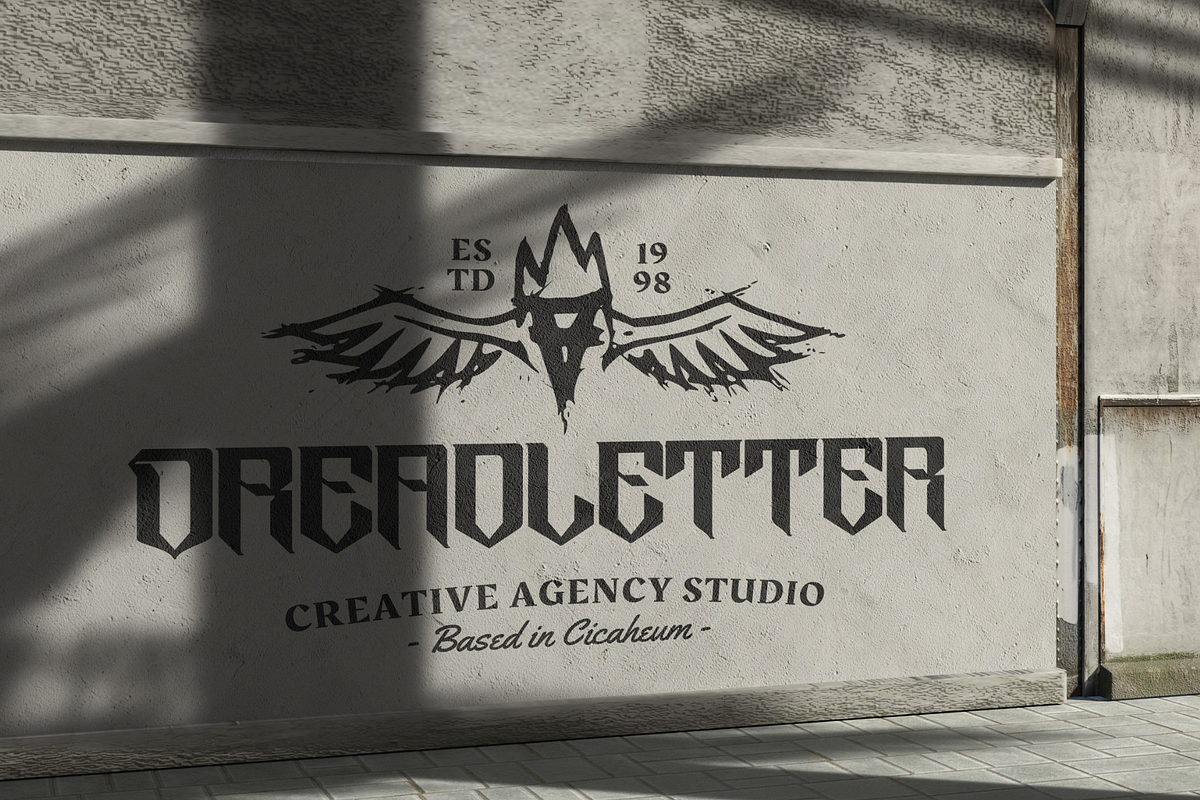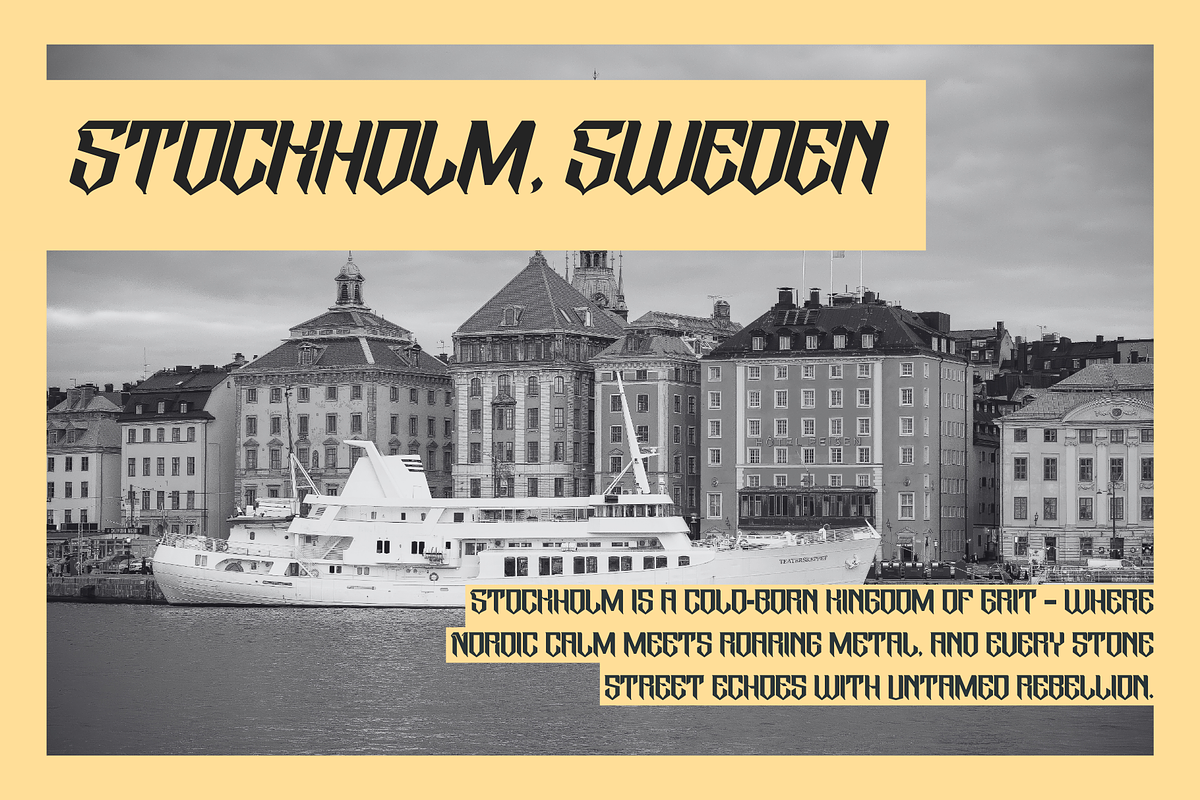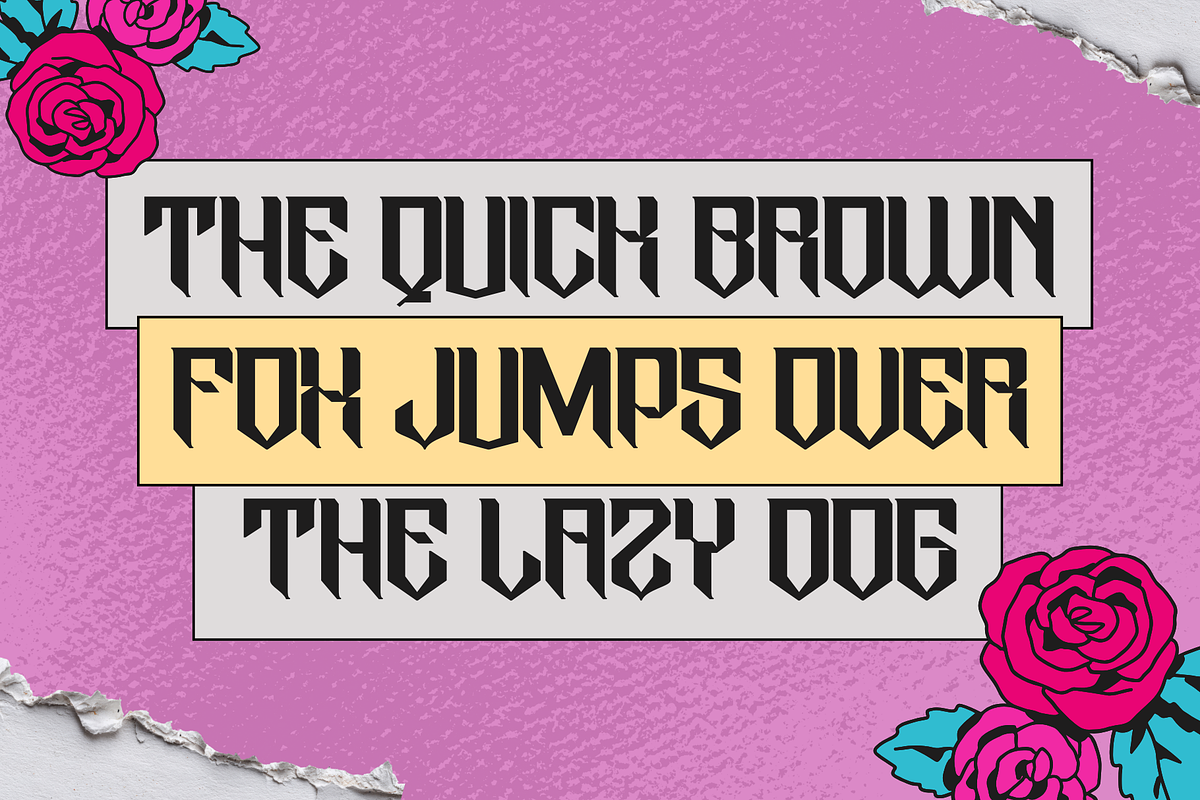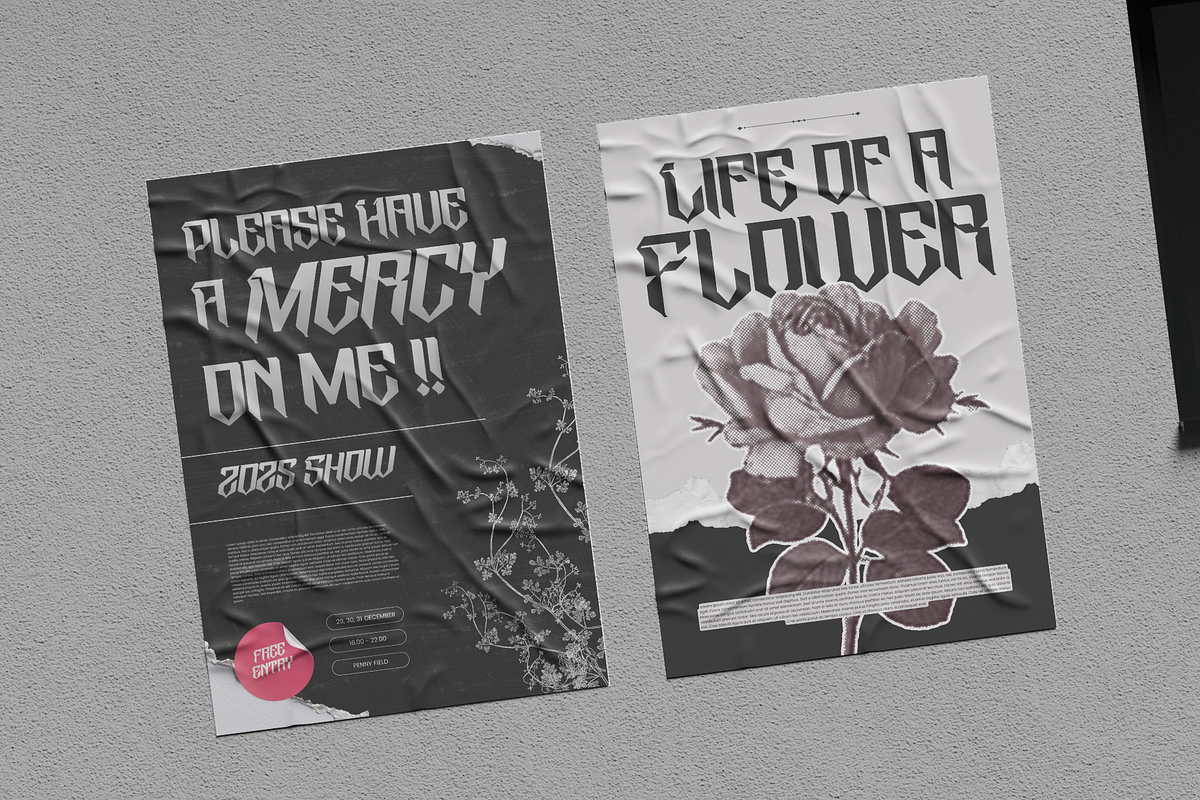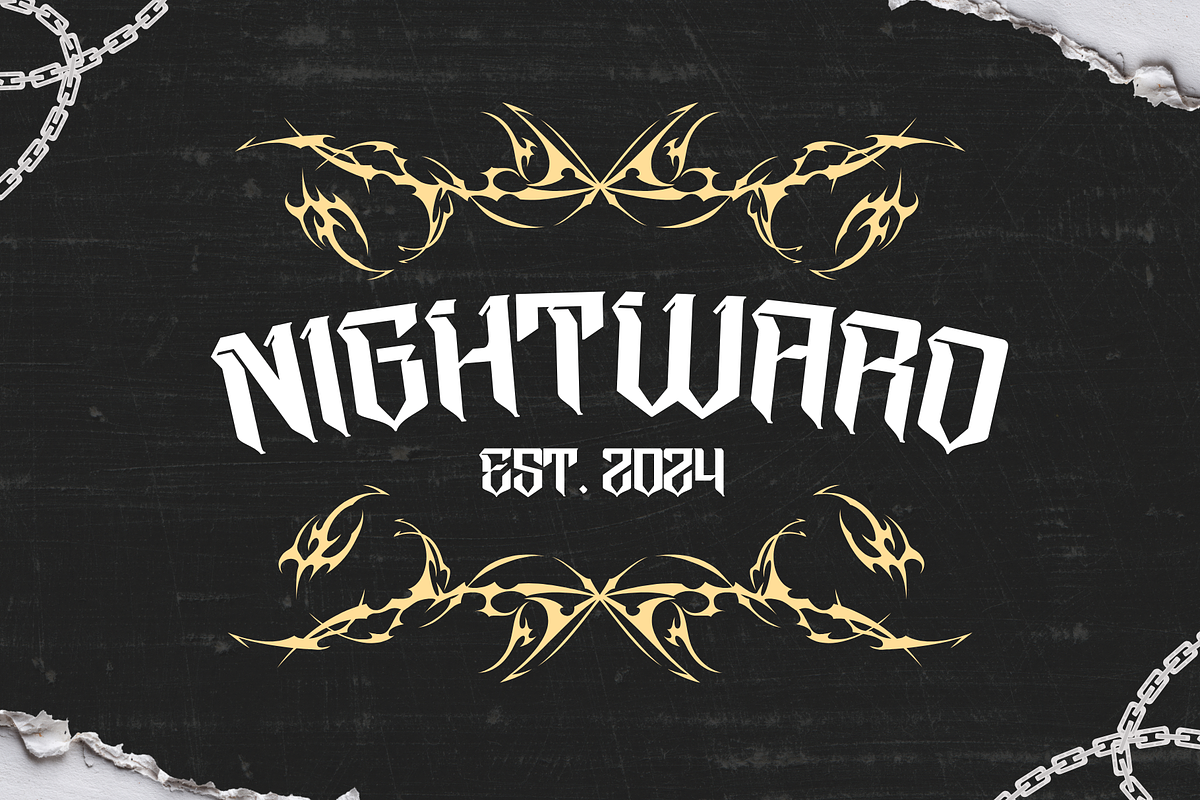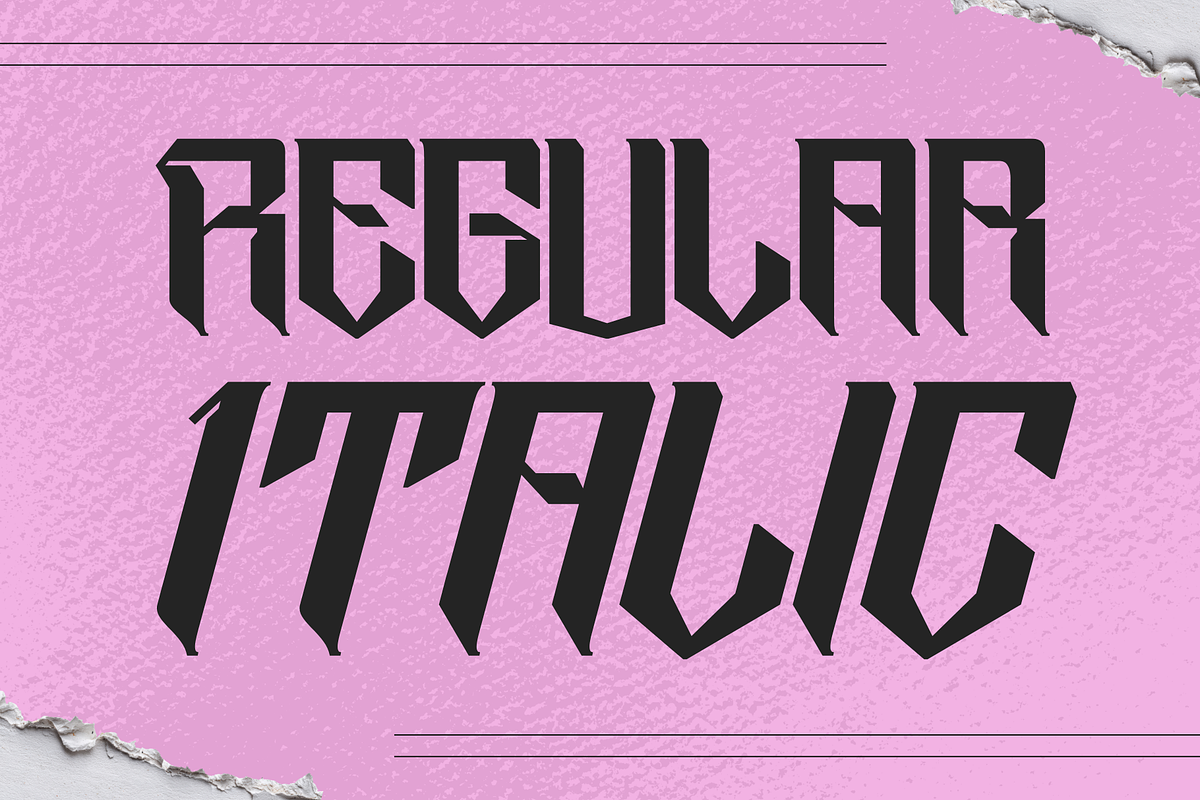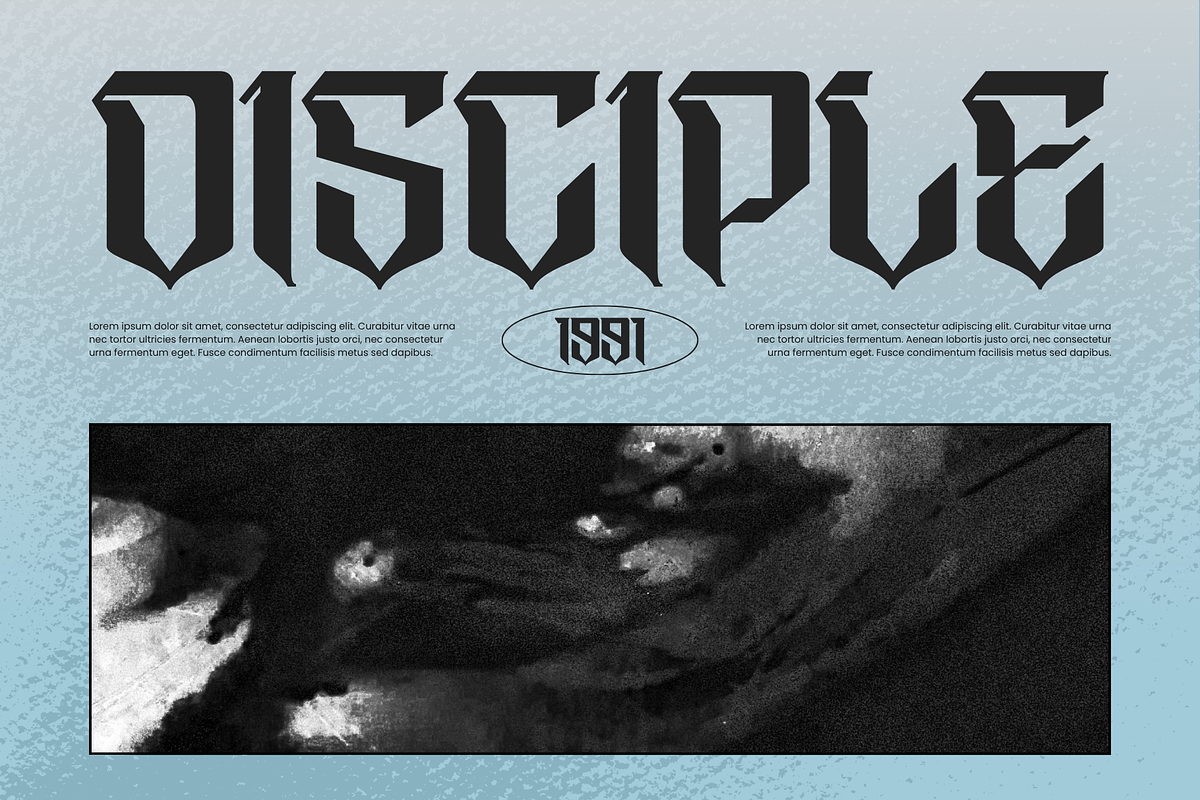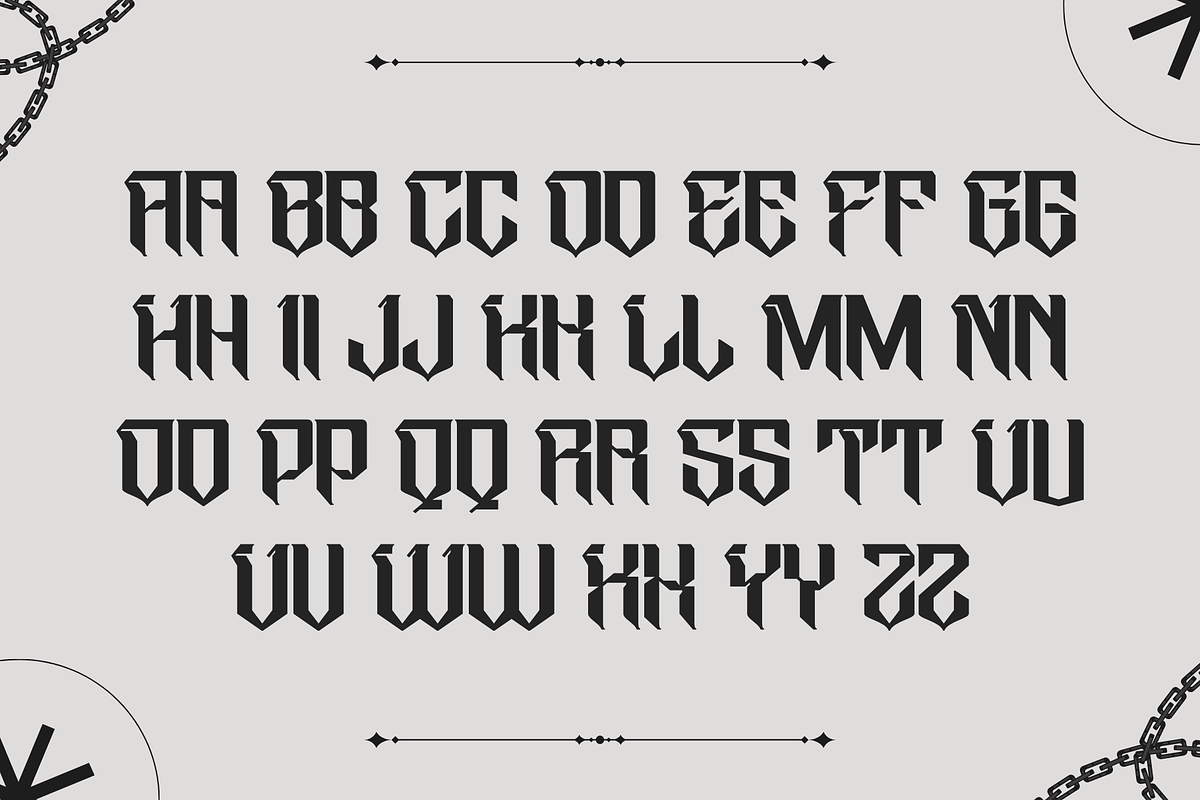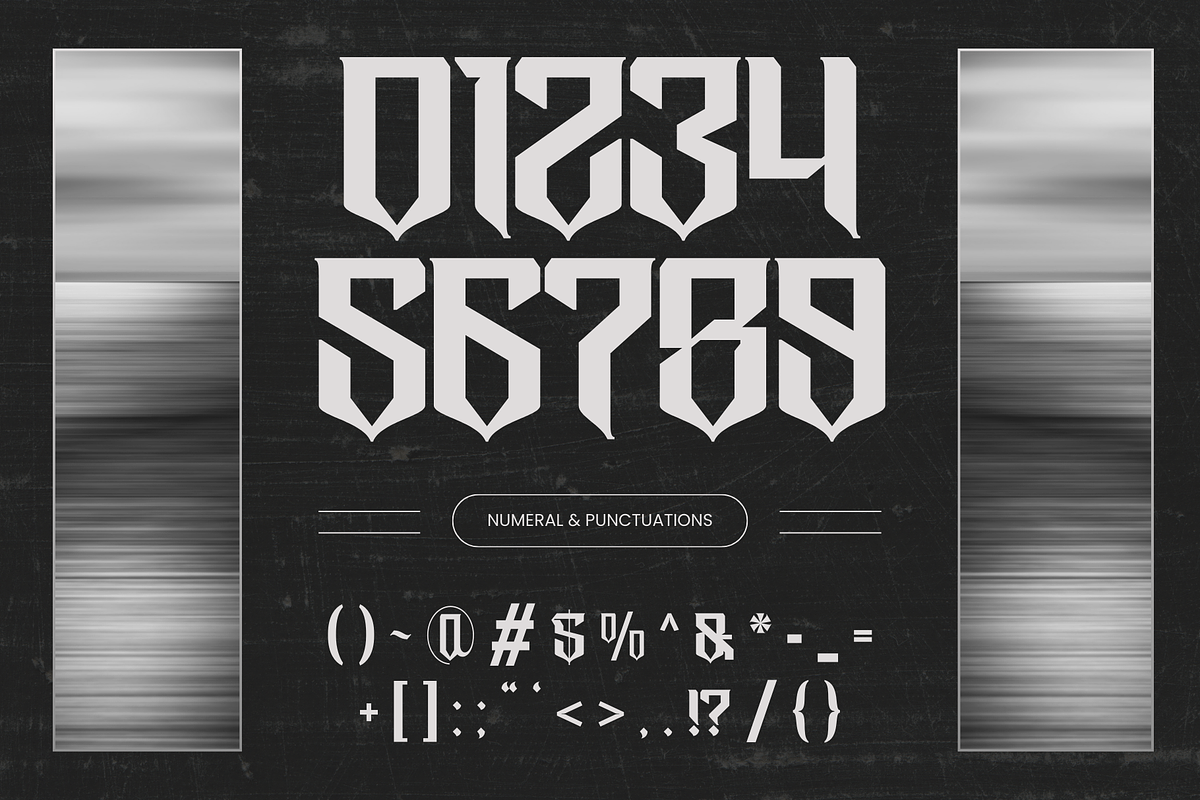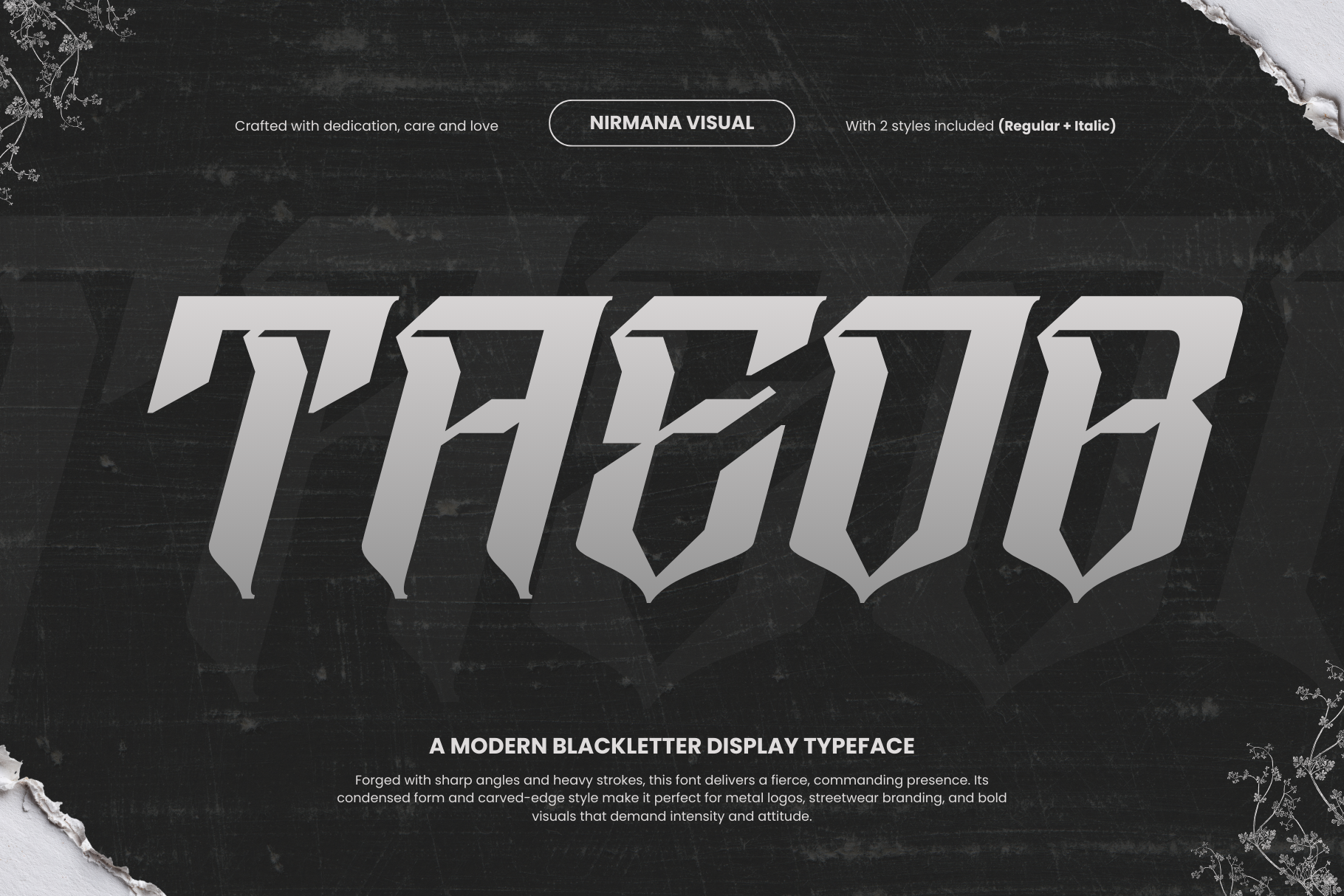
Taeob Gothic - Logo Blackletter Font
Taeob Gothic is a bold gothic font designed for powerful visual identity. Featuring Regular and Italic styles, it blends sharp edges with dark elegance—perfect for metal band logos, album covers, posters, apparel, and bold branding. Taeob Gothic delivers a fierce, dramatic look that stands out, making every design feel intense, raw, and unforgettable.